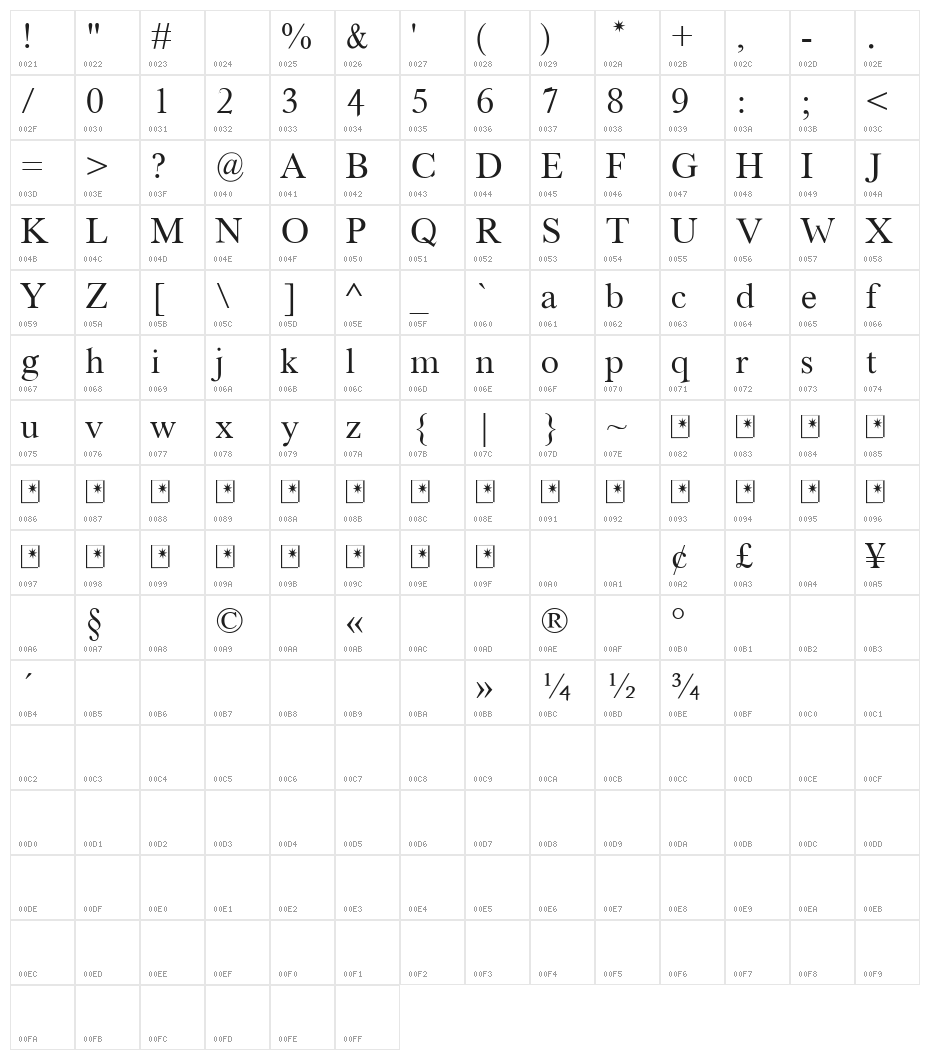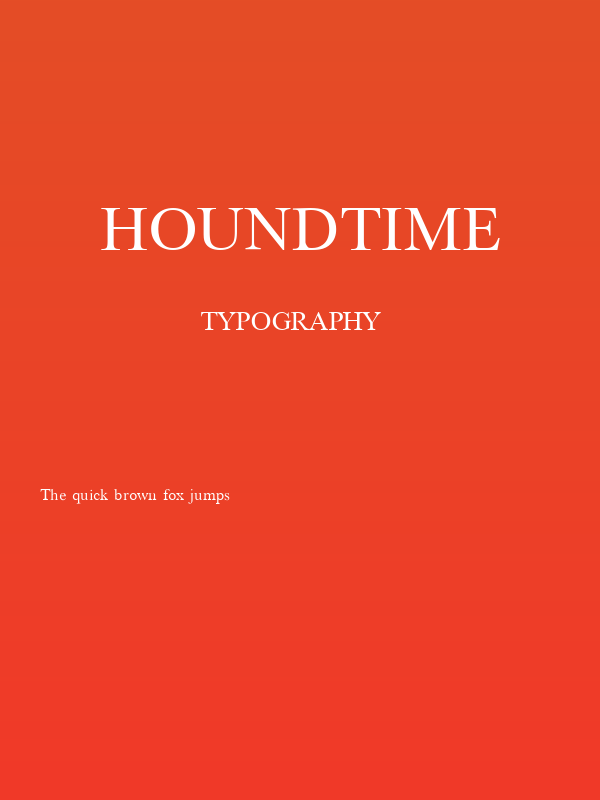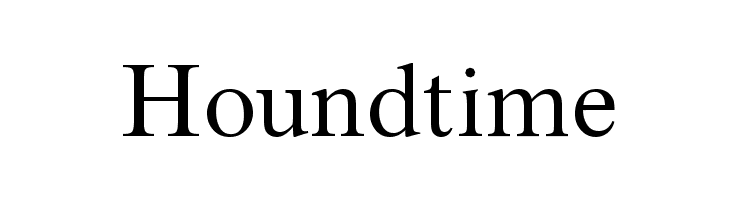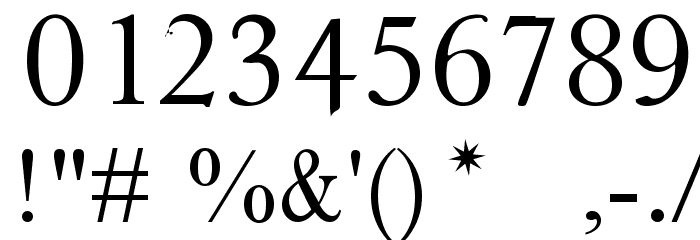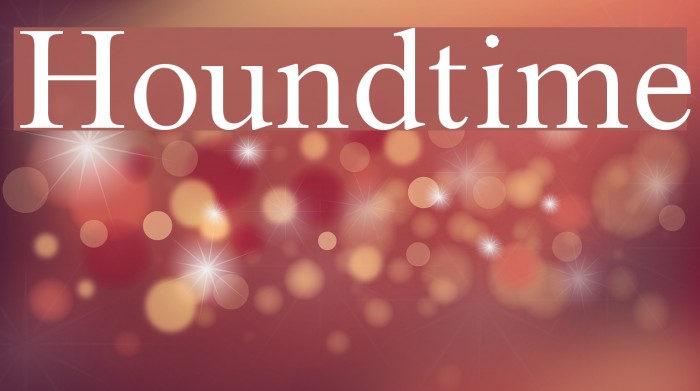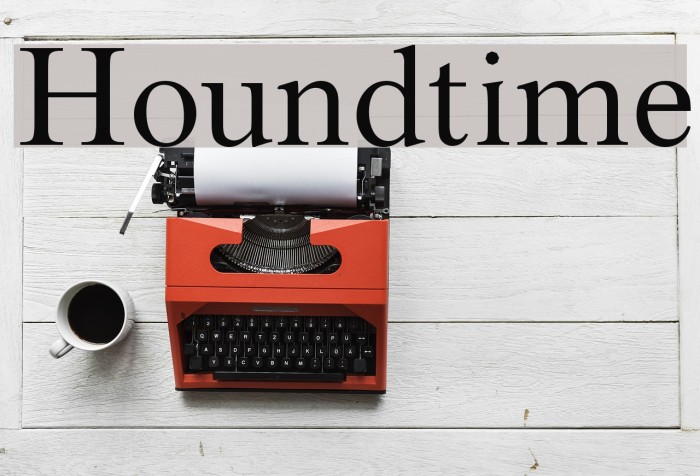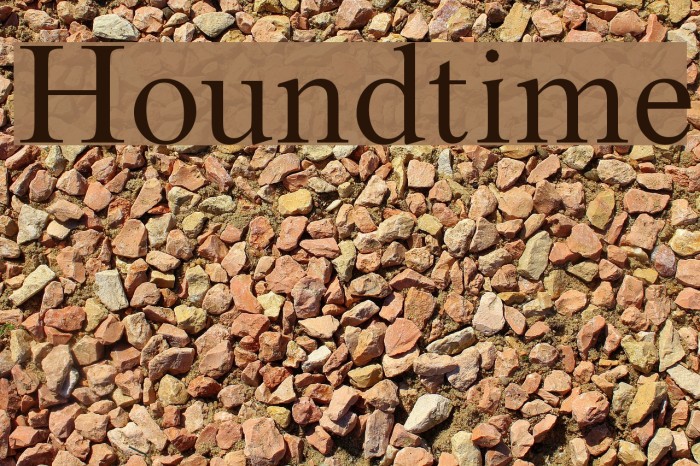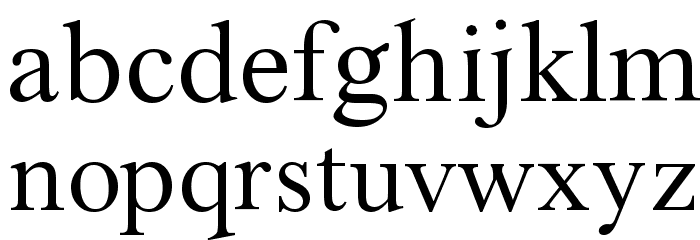
Houndtime Font
Houndtime Description
This font features a classic serif style with elegant and refined strokes. The uppercase letters are bold and commanding, while the lowercase letters maintain a graceful and fluid form. The numerals are clear and distinct, making them easily readable. Special characters are crafted with precision, adding to the font's versatility. The overall design exudes a timeless sophistication, suitable for a variety of formal and professional applications.
| Overall Style | Classic |
| Use Case | Headlines, Body text, Logos |
| Proposed Projects | Ideal for book covers, formal invitations, branding for luxury products, and editorial design. |